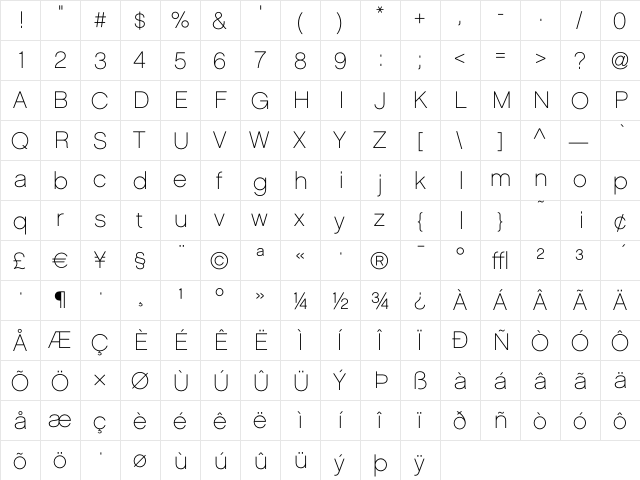
Chalet ParisNineteenSixty Font Preview
Chalet ParisNineteenSixty
Design Context for Chalet Typeface
Chalet offers clean, dependable letterforms without strong stylistic allegiance, making it a practical choice for designers who need flexibility.
Pro Tip: Pair Chalet with a font of contrasting weight or personality to build a more expressive typographic hierarchy.